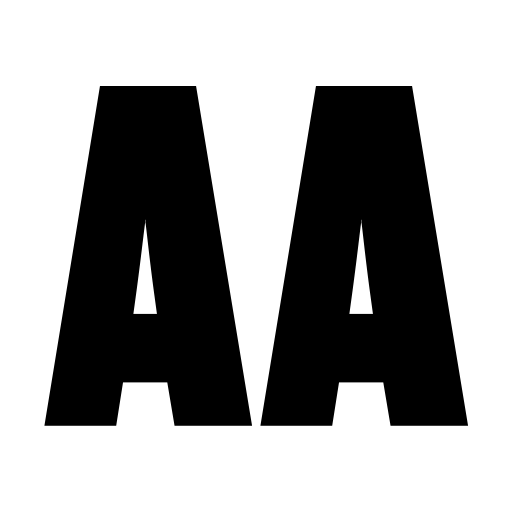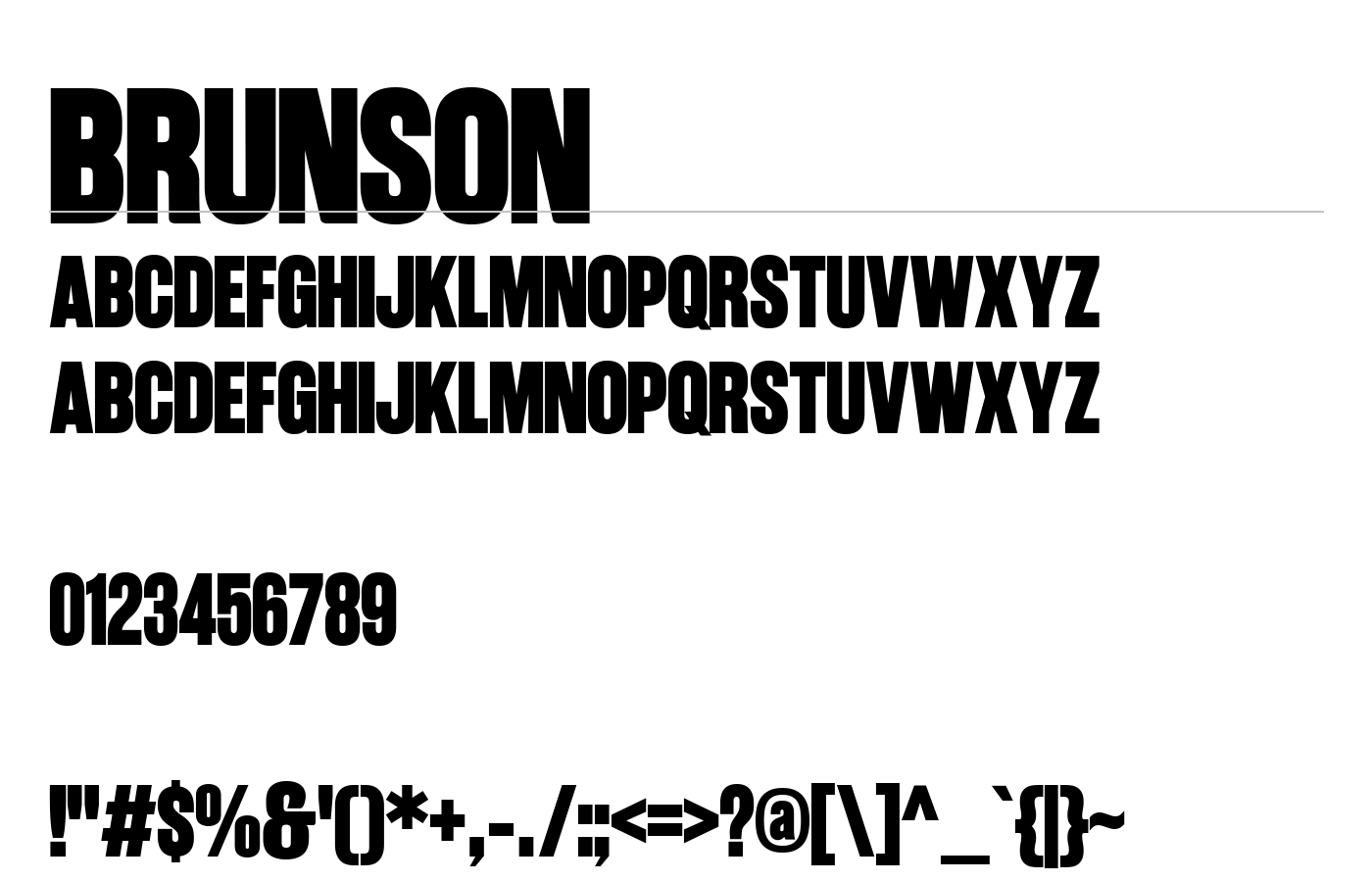
Brunson is a bold, condensed sans serif typeface with a strong, impactful presence, making it perfect for headlines and display use where attention is key. Its evenly weighted, geometric strokes and tall, narrow letterforms create a modern, assertive look that works well for branding, posters, and editorial titles seeking a confident and clean style. This font stands out in any design that demands clarity and power without sacrificing readability.
Brunson Font
About Brunson Font